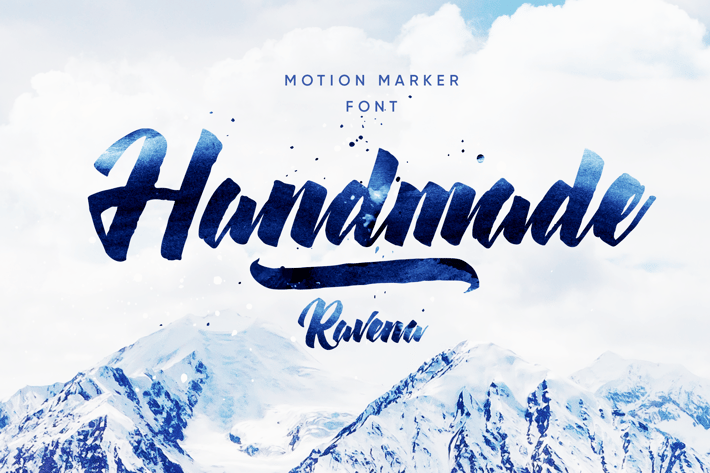
Ravena Script Font
Introducing our new typeface trio, Ravena - a contemporary, Hand Made-inspired display typeface full of character, quirky ligatures, and glyphs to keep your designs fresh.
This is a display font that we recommend using in the following types of work; magazines (titles and layouts), logos and branding, invitations, quotes, blog headers, posters, and advertising.
Uppercase and lowercase glyphs
Unique ligatures glyphs
Splashes
This is a display font that we recommend using in the following types of work; magazines (titles and layouts), logos and branding, invitations, quotes, blog headers, posters, and advertising.
Uppercase and lowercase glyphs
Unique ligatures glyphs
Splashes